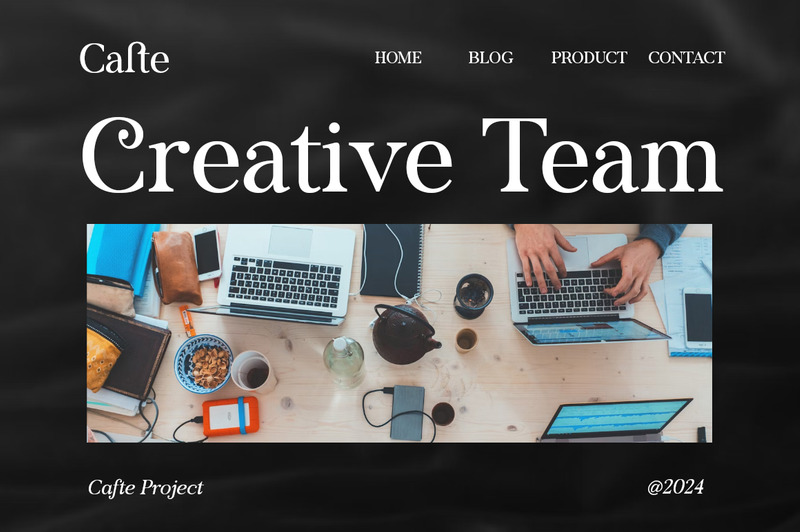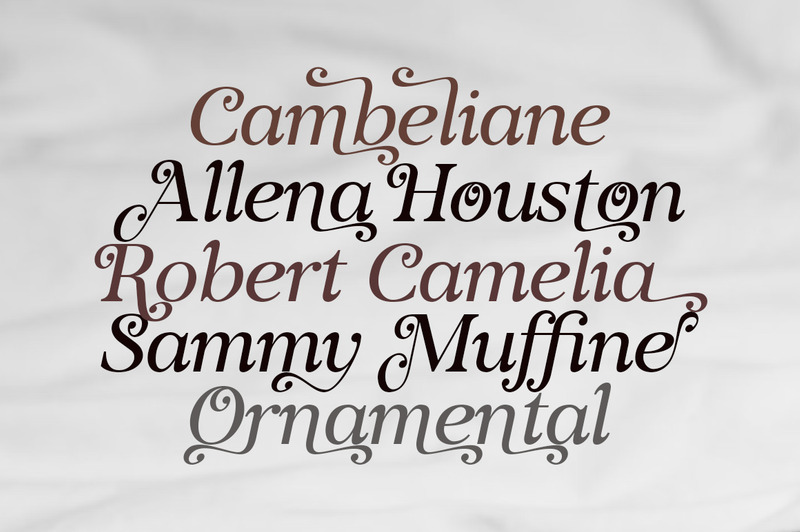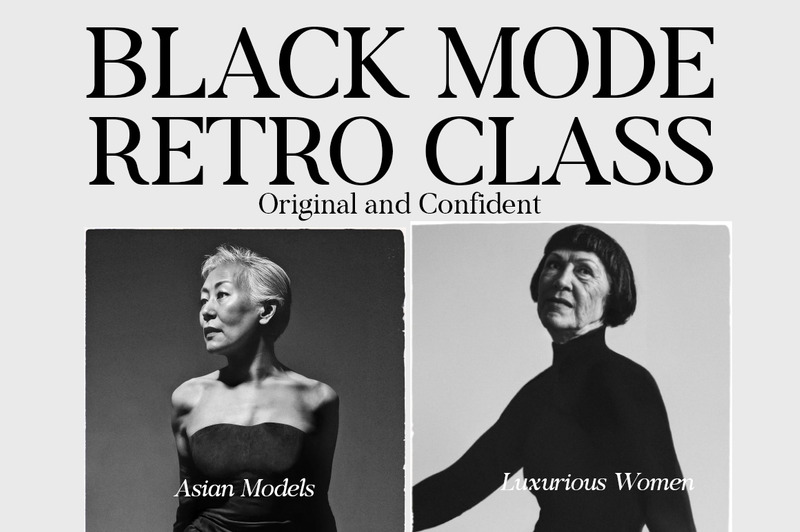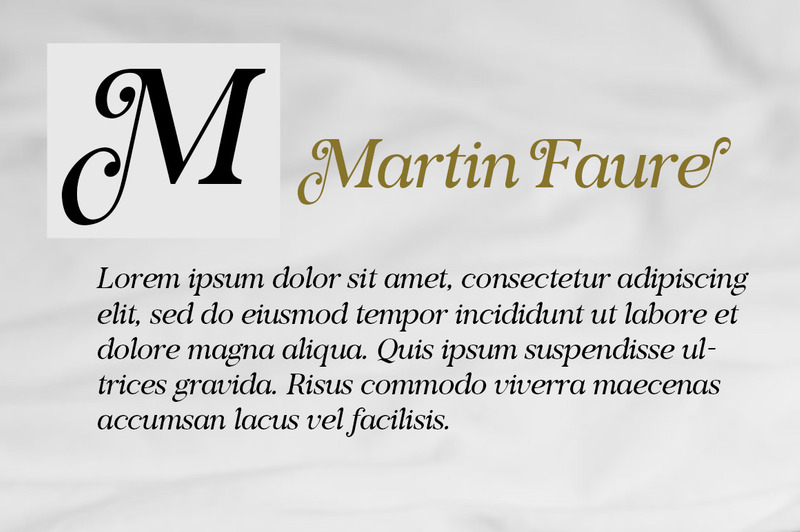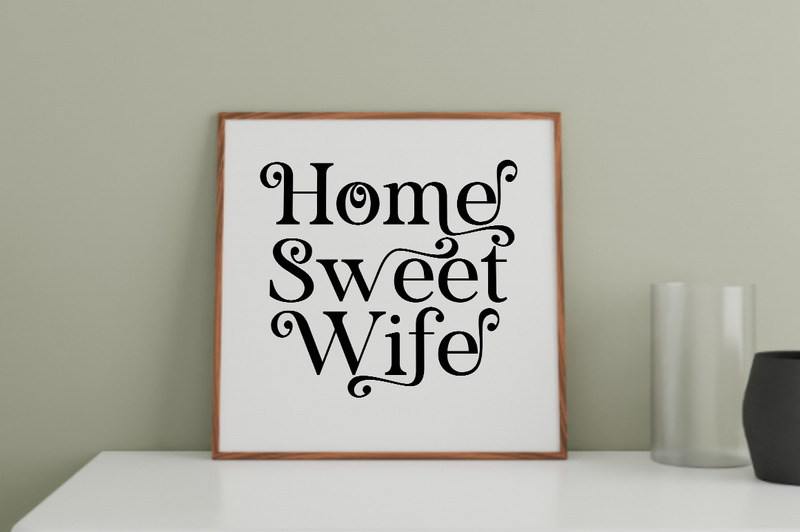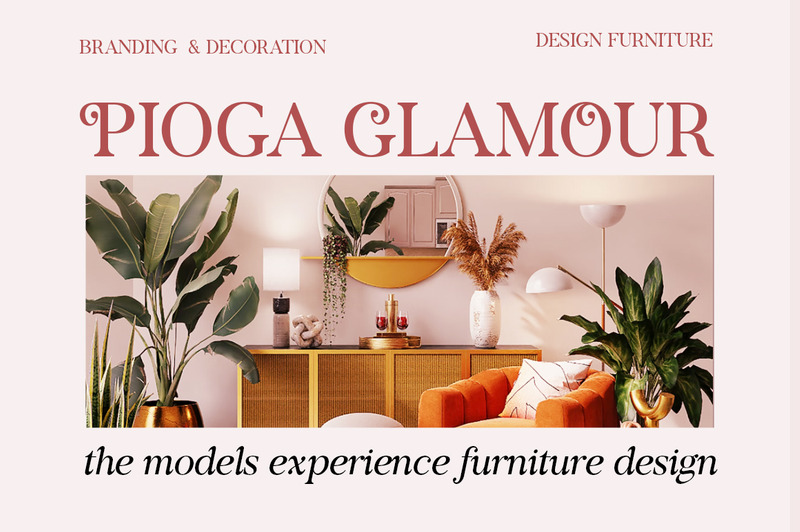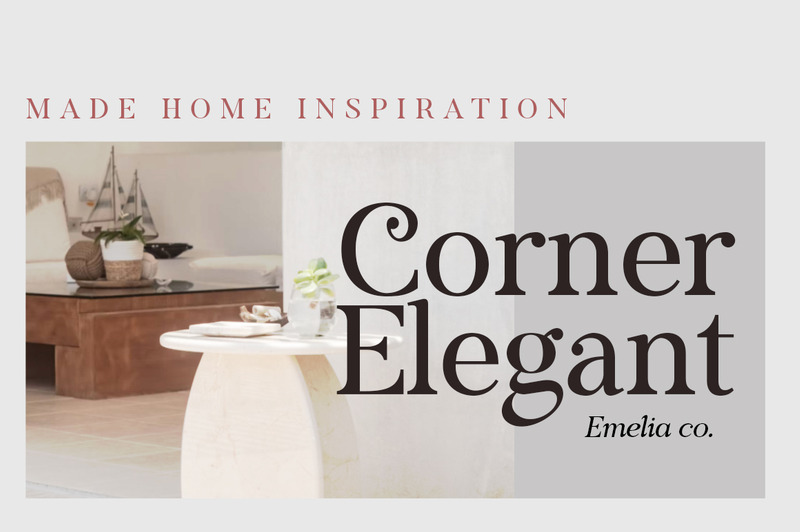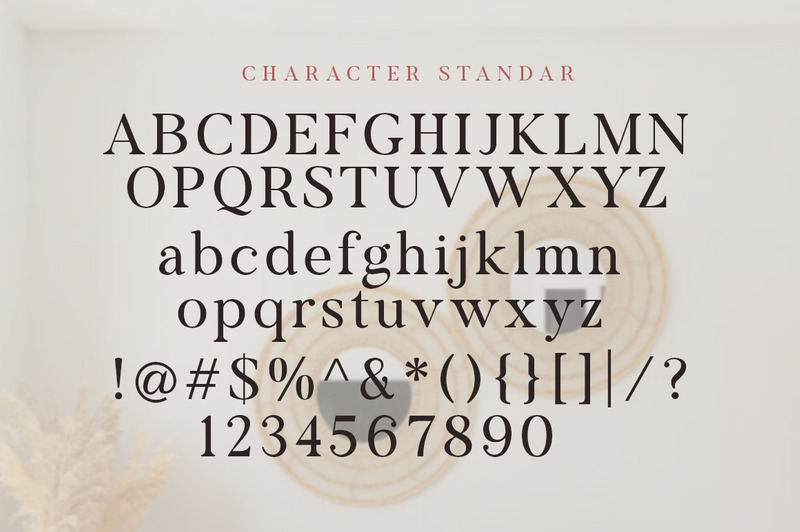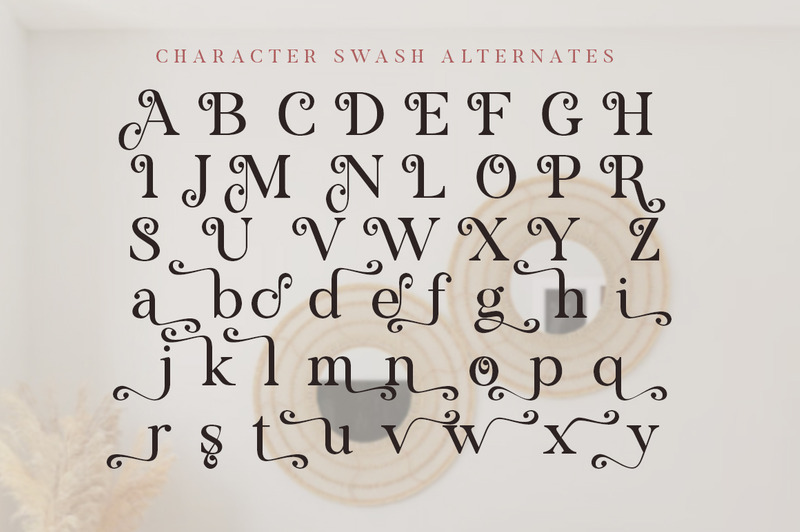
Voster Noise serif modern
The Voster Noise is stylish with extreme cuts, sharp angles and interactive straps. Characters that seem solid are spread across each replacement letter, with different styles and maximum personality. The separation of bold character and standards that are considered binding creates a type that is solid, modern and attractive. Suitable for logos, emblems, magazines, quotes etc.